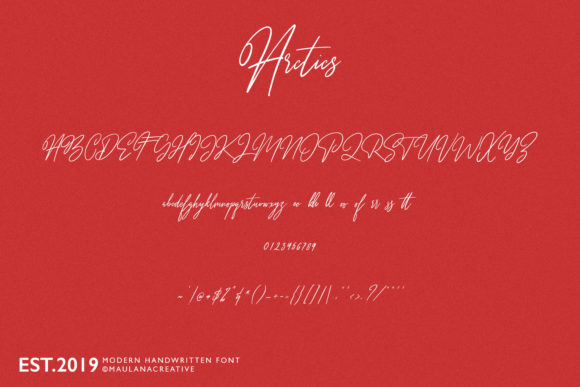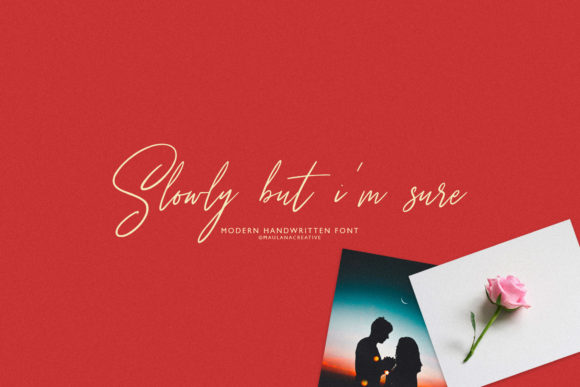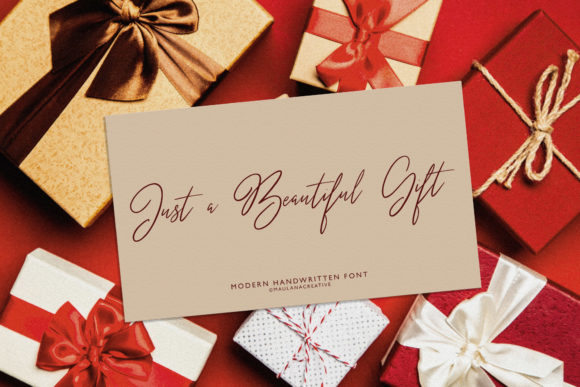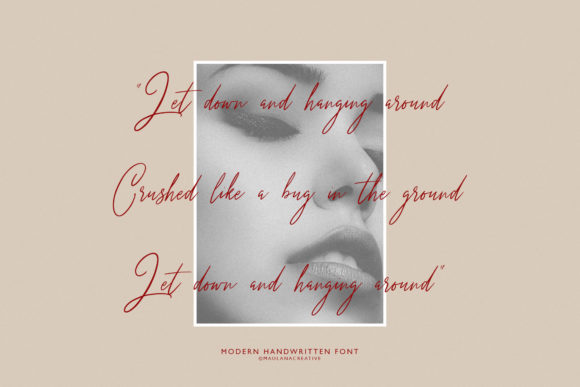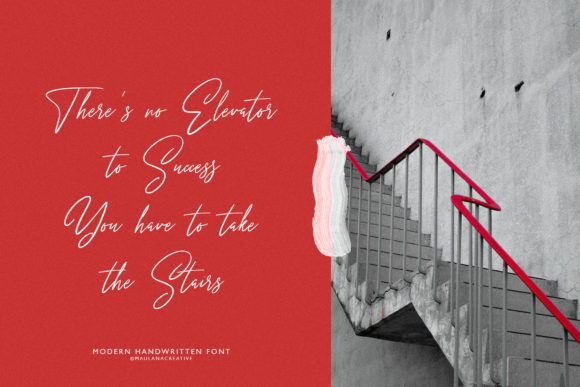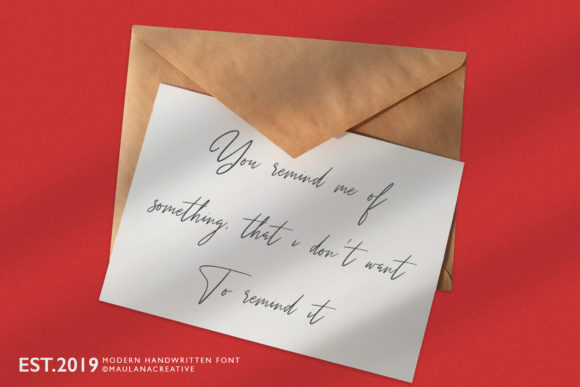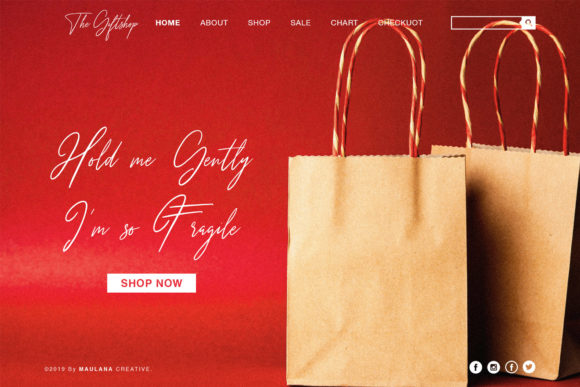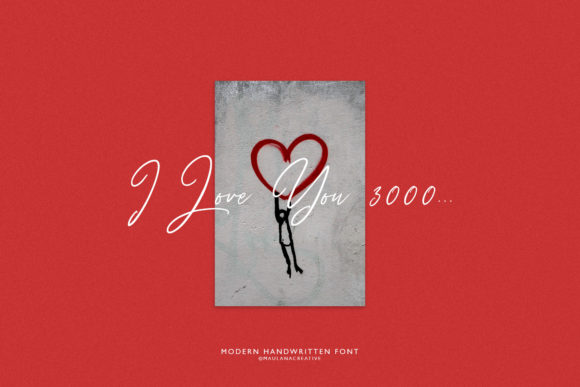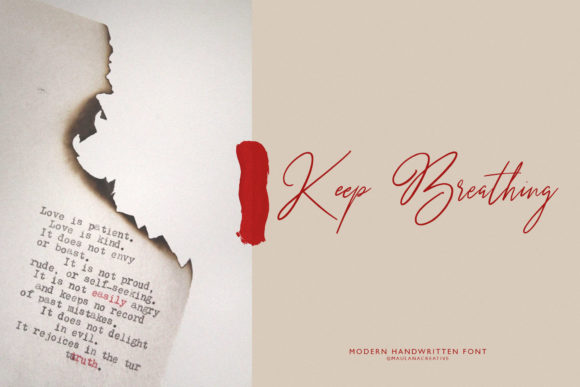
Arctics Font
About Arctics Font
Arctics is the ideal font for giving your designs an authentic handcrafted feel. Fall in love with its modern simplicity.